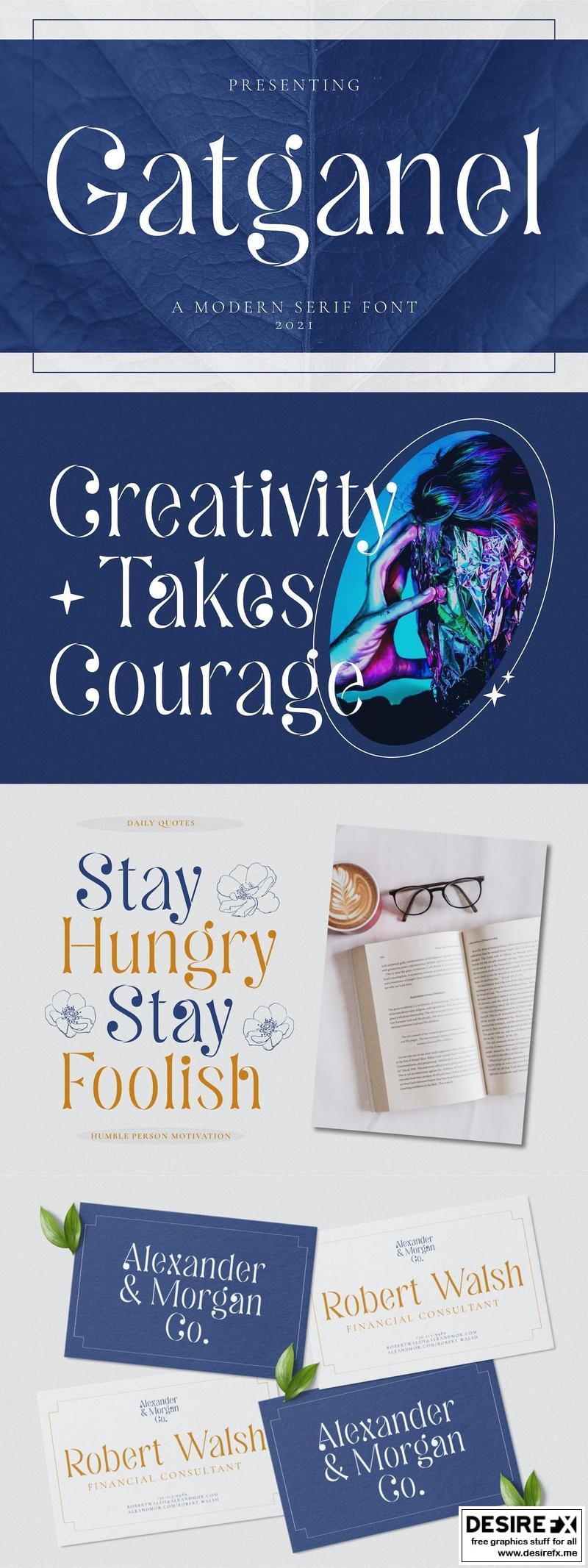
Gatgenel RSWV6ST
Runsell’s Font Product is perfect for many of your projects like logos & branding, photography, invitations, watermarks, advertisements, product designs, stationery, wedding designs, labels, product packaging, special events and much more.